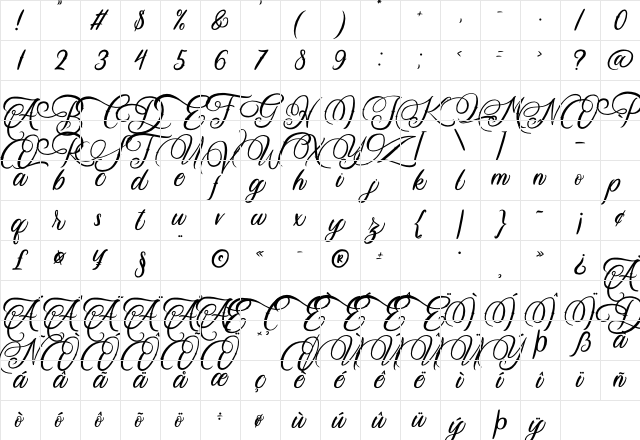
Complete Daisuky Fancy Regular glyph index. Displaying only characters natively supported by Daisuky Fancy Regular font.
Daisuky Fancy is a composed and adaptable typeface that performs quietly and consistently across a wide range of design contexts.